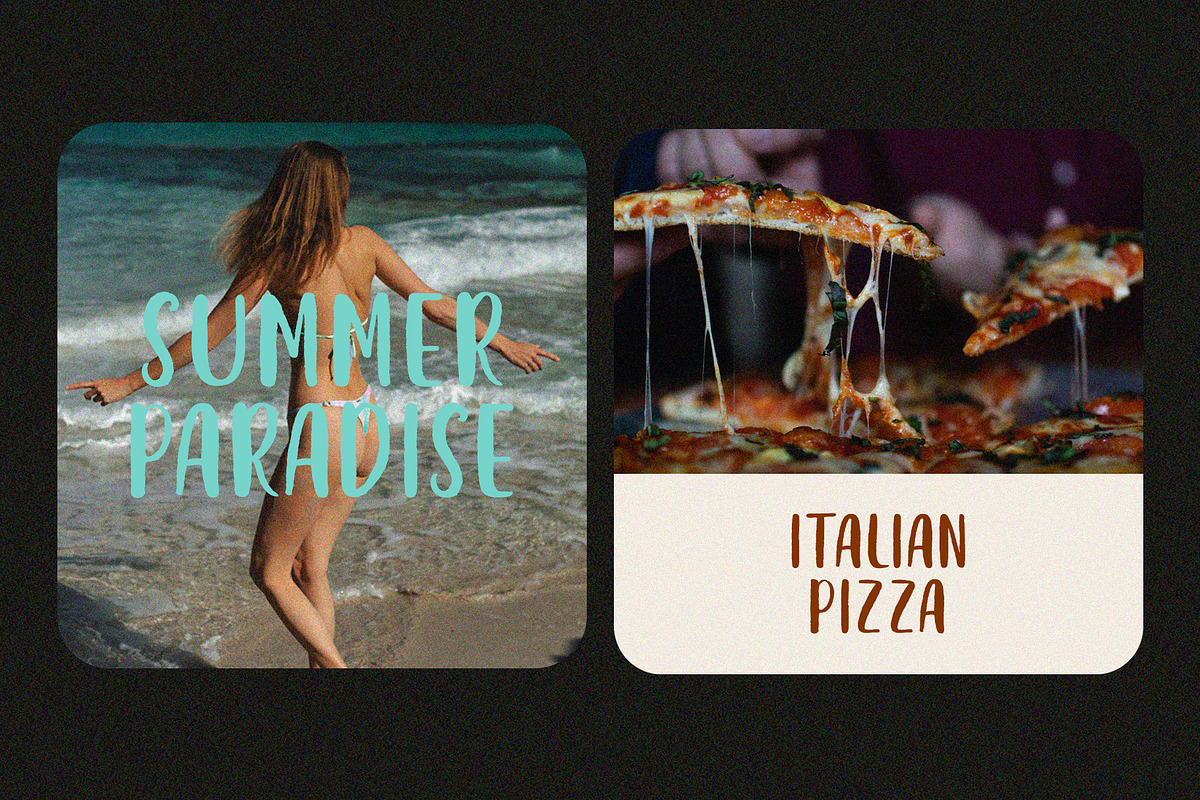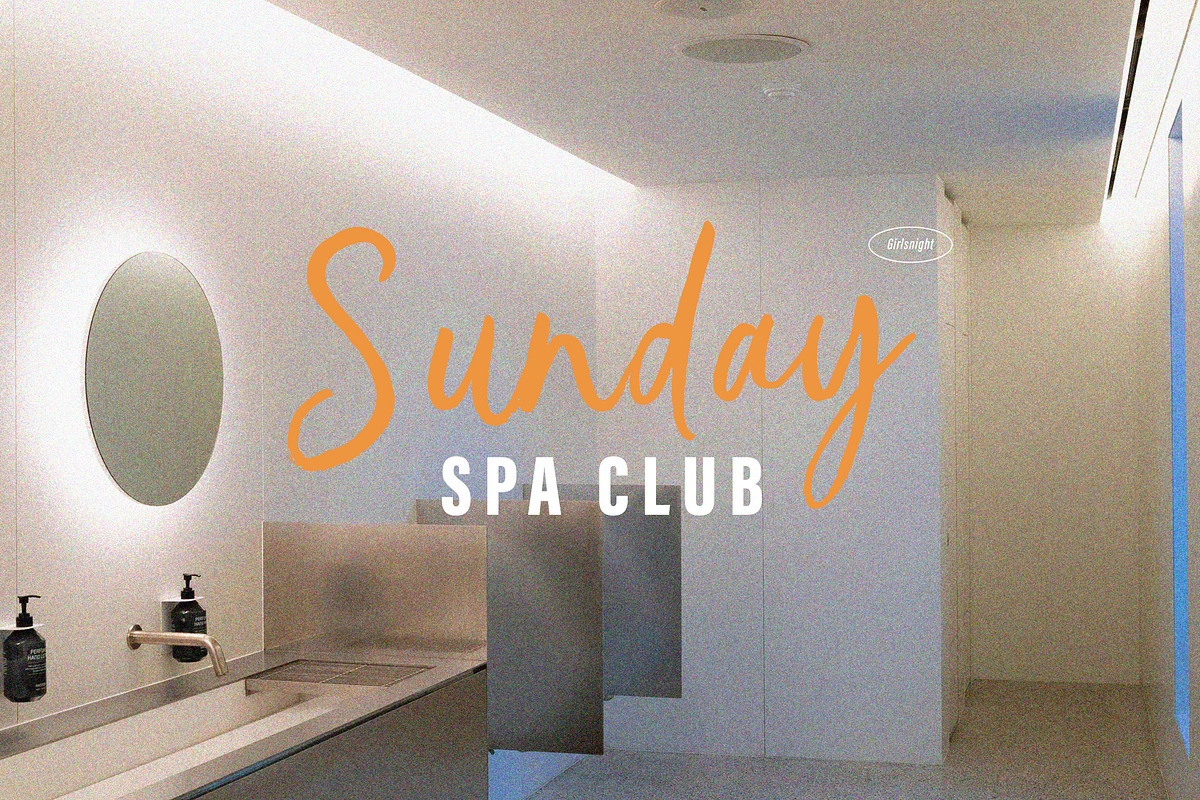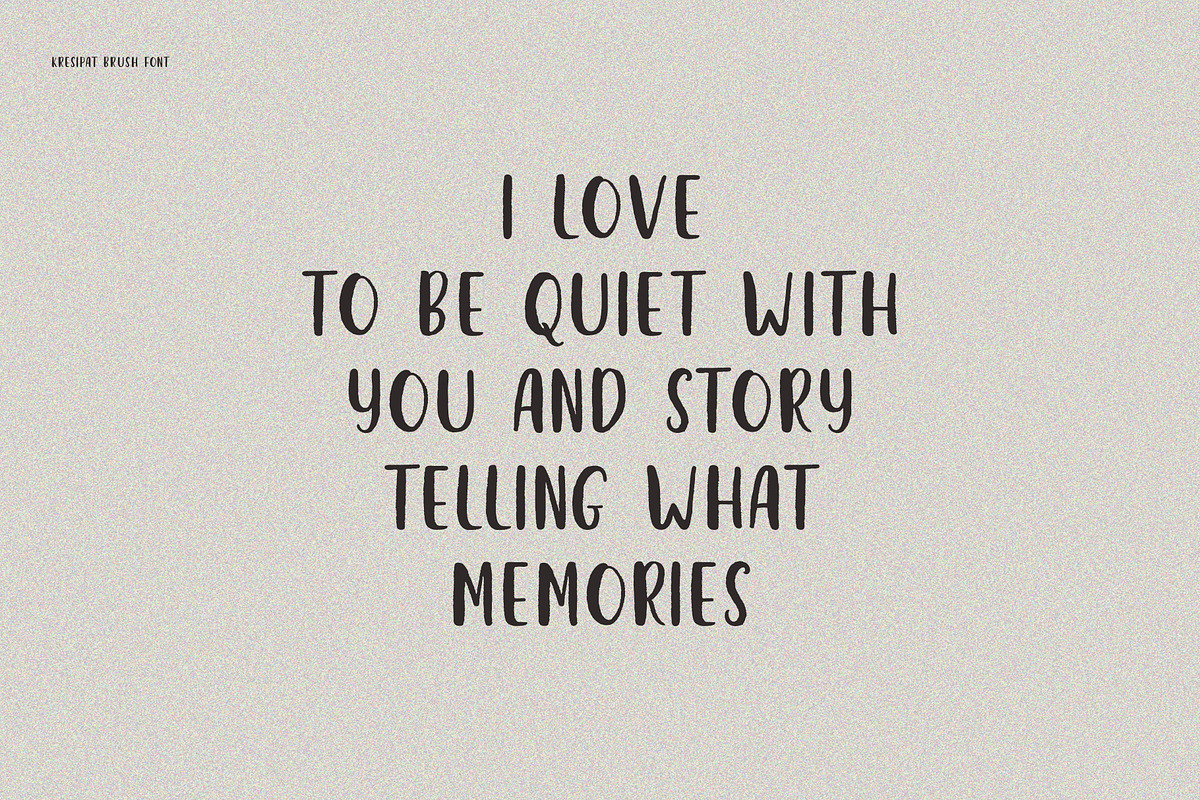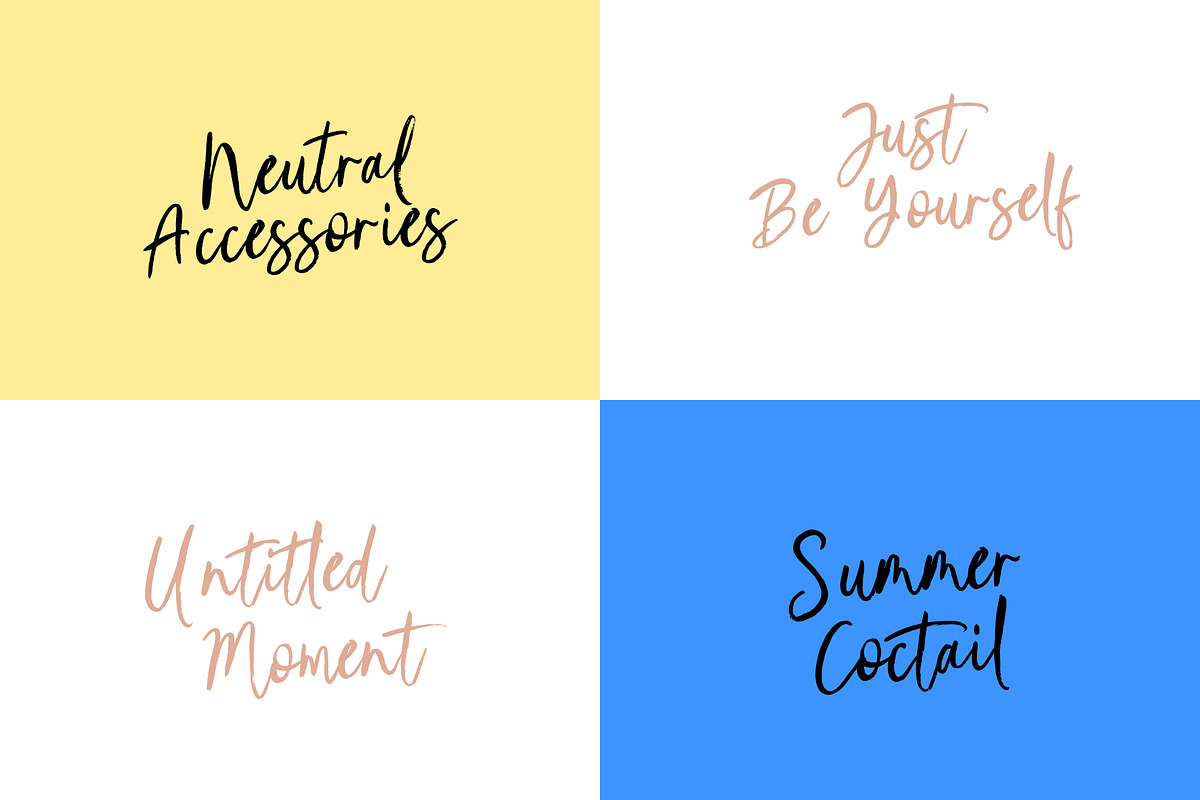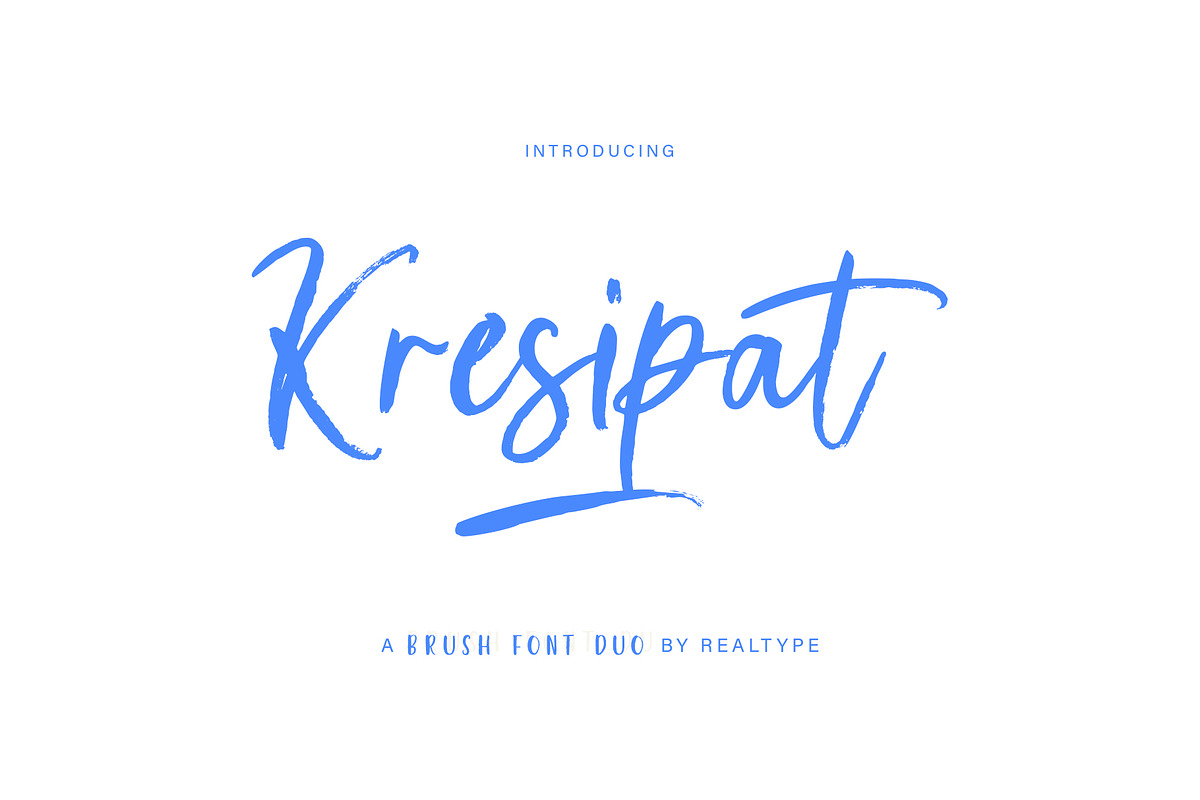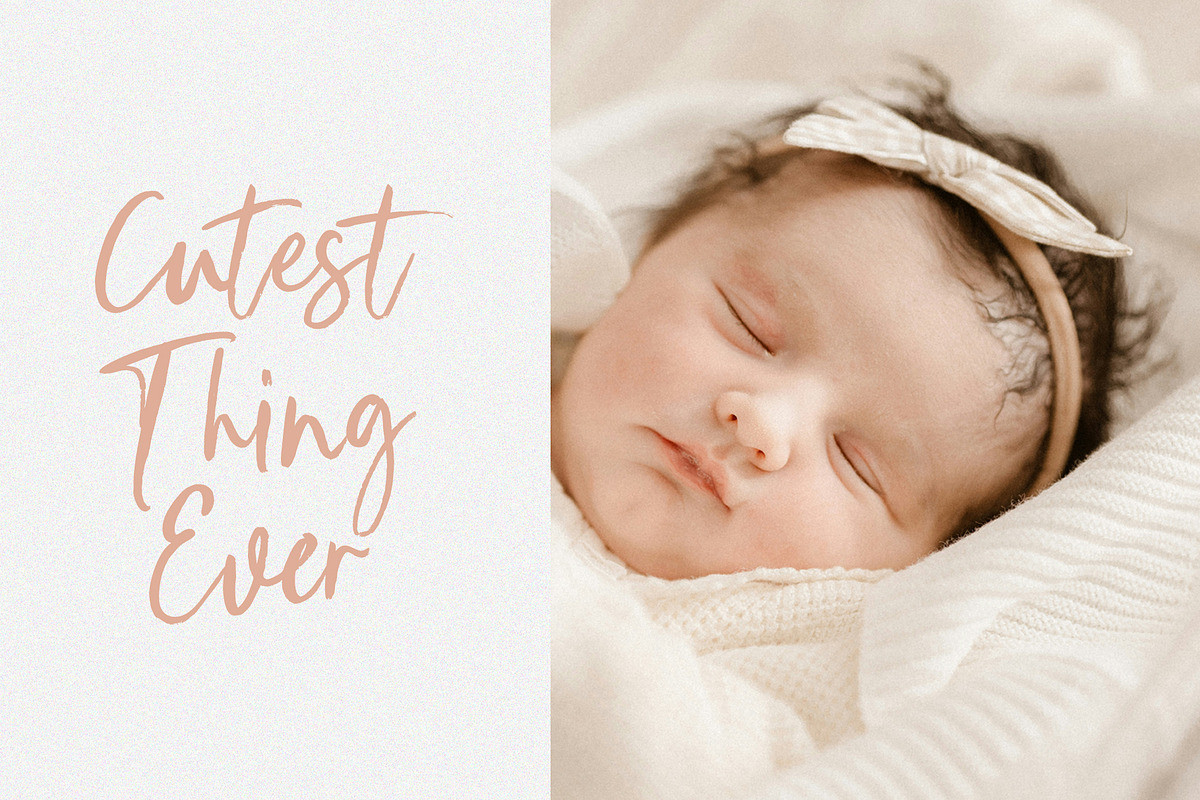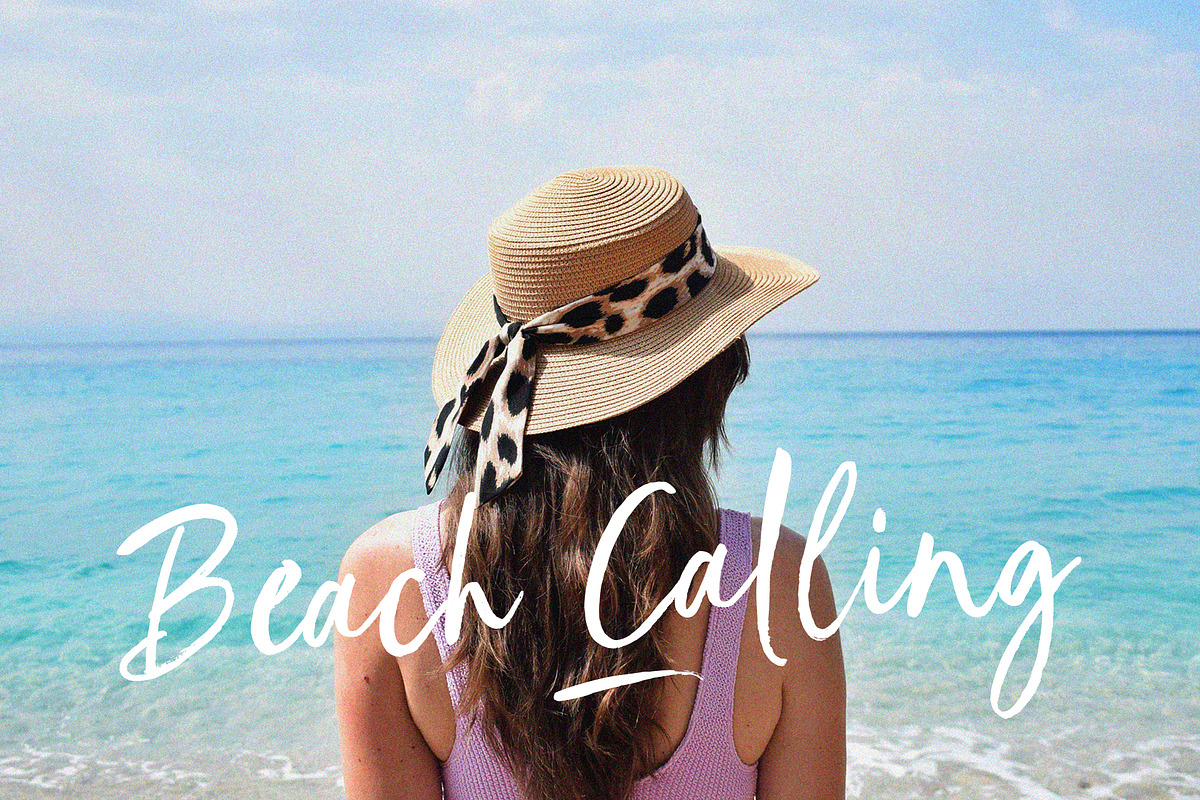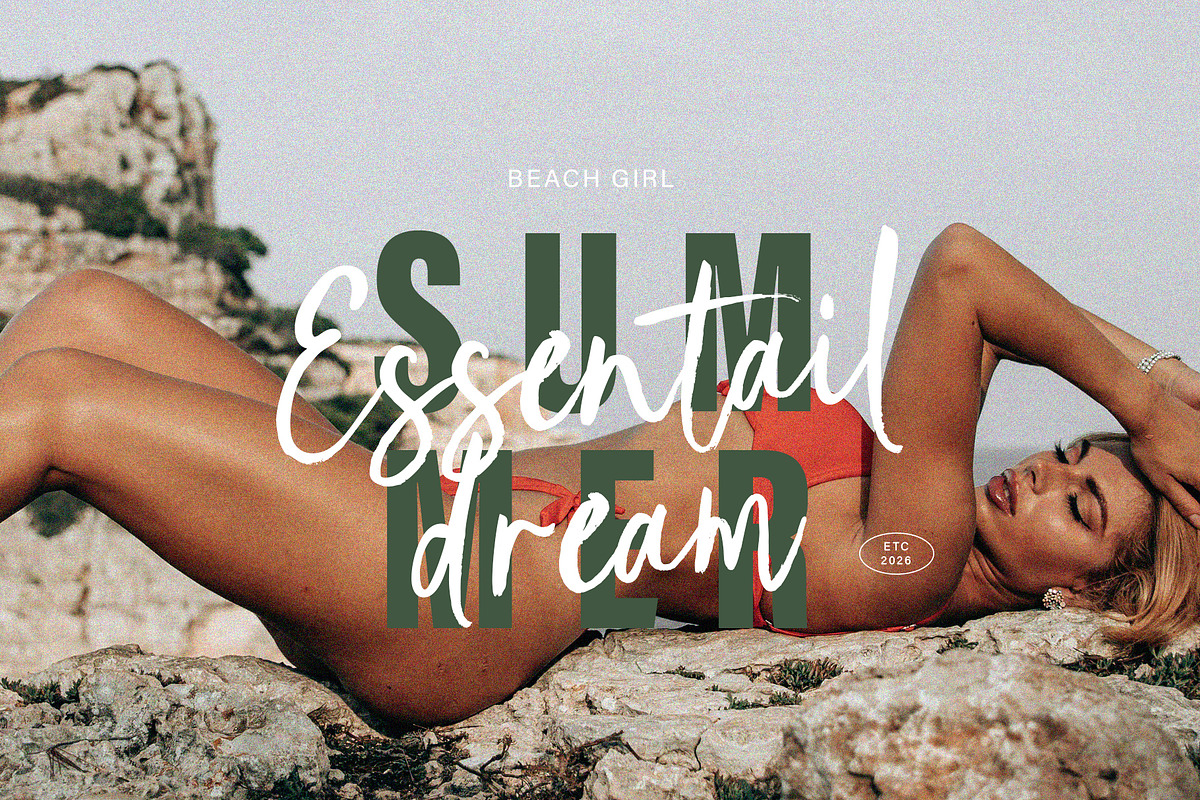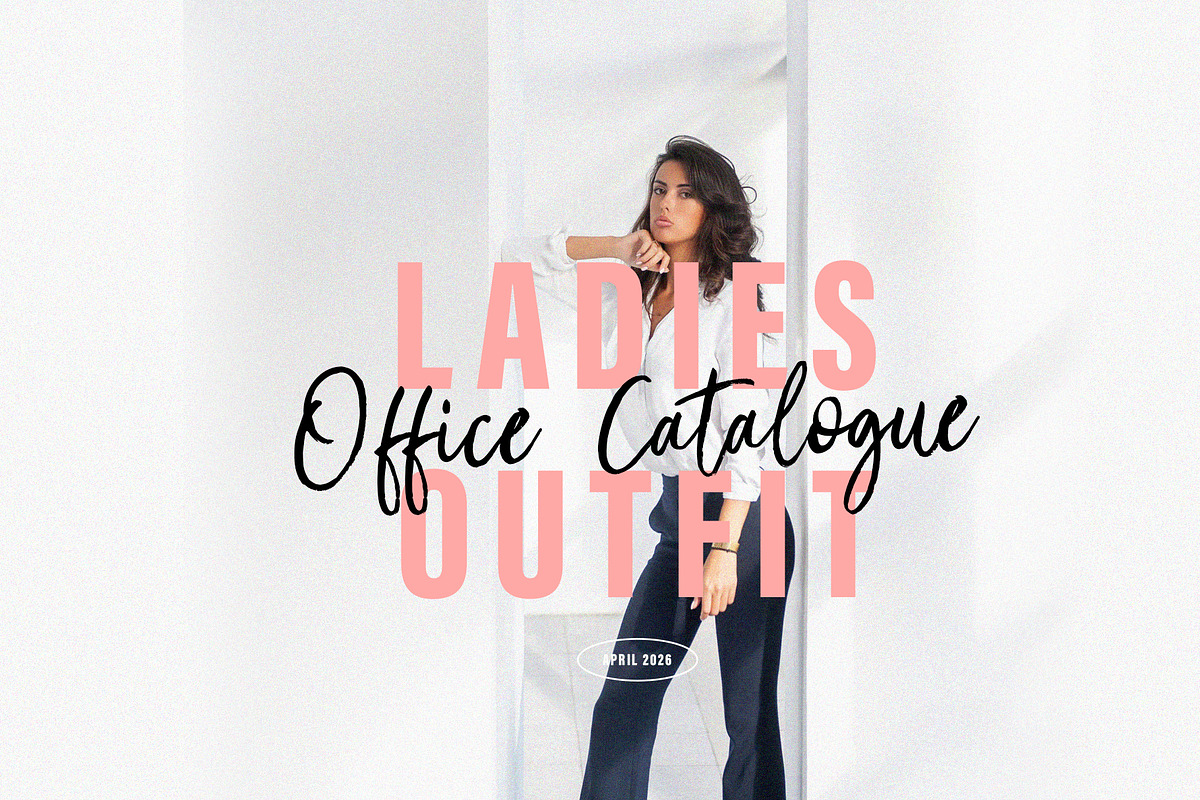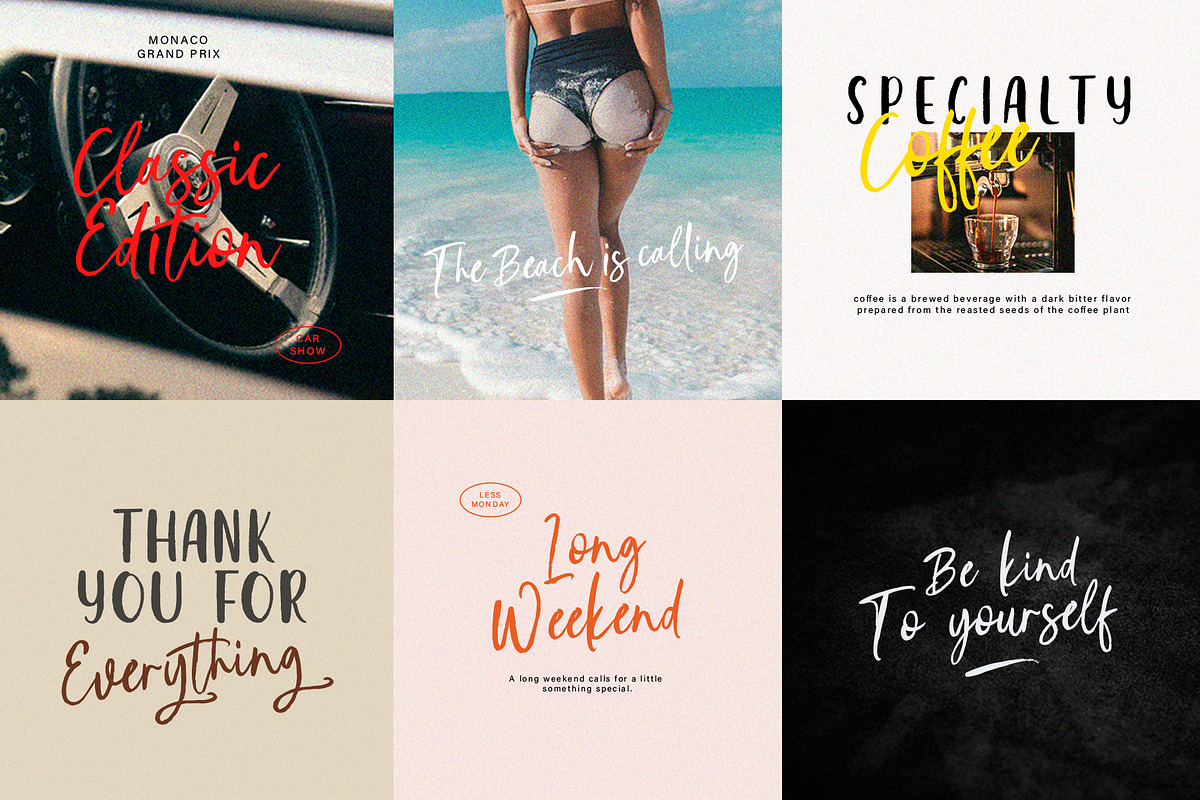
Kresipat Brush
Meet Kresipat Font Duo, a harmonious blend of sans Brush and script Brush styles that creates a balanced and fresh look.
Kresipat Font Duo comes with multiple styles in both sans and script.
Kresipat Brush Font Duo is suitable for any modern design such as for cards, invitations, announcements, seasonal designs, social media promotions, web design, branding and logo styling and more.